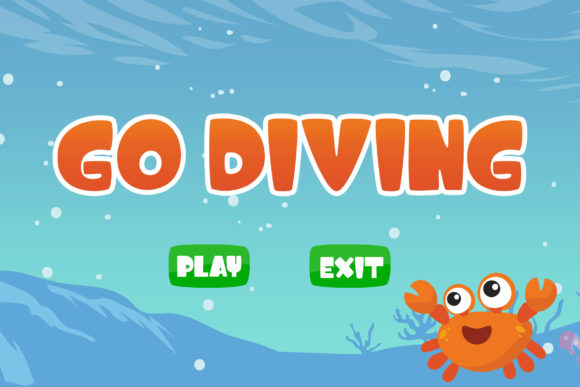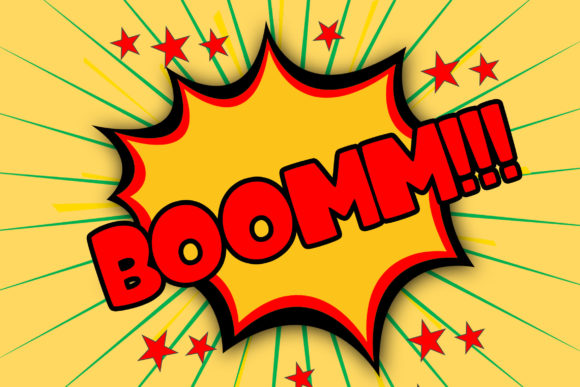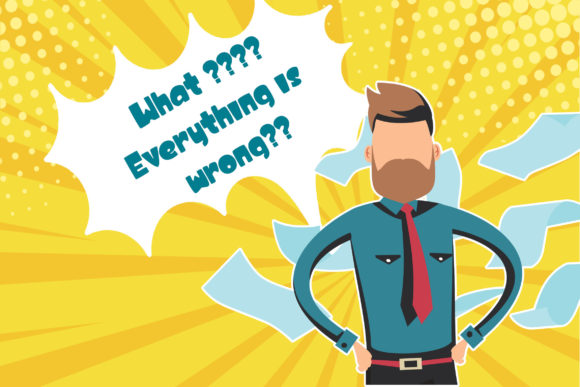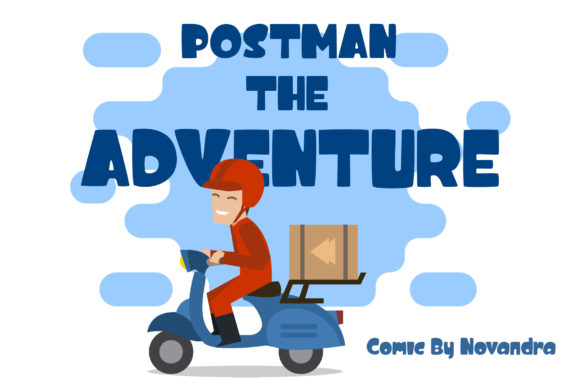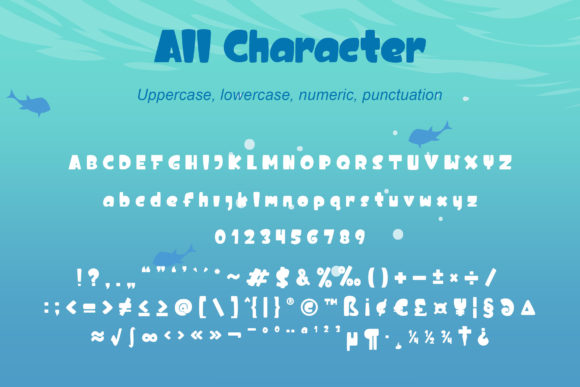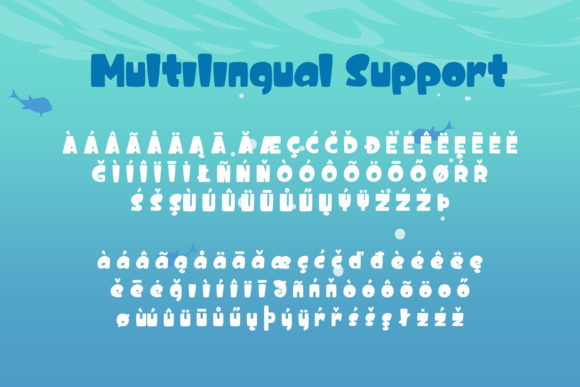
Introducing Fishland Font: The Perfect Choice for Whimsical Designs
Are you a designer or crafter looking for a font that can add a touch of friendliness and quirkiness to your creations? Look no further than Fishland Font! This thick lettered, friendly, and quirky display font is perfect for a wide range of design projects, from cartoon-related designs to children’s games, quotes, titles, brand names, book covers, posters, and more.
What Makes Fishland Font So Special?
Fishland Font is a unique and eye-catching font that is sure to make your designs stand out. Its thick letters and friendly vibe make it perfect for designs that require a touch of playfulness and whimsy. Whether you’re creating a children’s book, a cartoon, or a poster, Fishland Font is a great choice. Its quirky style is sure to capture the attention of your audience and leave a lasting impression.
Uses for Fishland Font
Fishland Font is a versatile font that can be used for a wide range of design projects. Here are some ideas to get you started:
- Cartoon-related designs: Fishland Font is perfect for creating cartoon characters, logos, and titles. Its playful style is sure to bring your cartoons to life.
- Children’s games: Fishland Font is a great choice for creating games, puzzles, and other interactive activities for kids. Its friendly and approachable style is sure to delight children and make your games more engaging.
- Quotes and titles: Fishland Font is perfect for creating eye-catching quotes and titles. Its thick letters and quirky style make it a great choice for adding a touch of personality to your designs.
- Brand names: Fishland Font can be used to create unique and memorable brand names. Its friendly and approachable style is sure to make your brand stand out.
- Book covers: Fishland Font is a great choice for creating eye-catching book covers. Its playful style is sure to capture the attention of readers and make your book more appealing.
- Posters: Fishland Font is perfect for creating posters that require a touch of whimsy and playfulness. Its quirky style is sure to make your posters more engaging and memorable.
Benefits of Using Fishland Font
There are many benefits to using Fishland Font in your designs. Here are a few:
- Unique and eye-catching: Fishland Font is a unique and eye-catching font that is sure to make your designs stand out.
- Playful and whimsical: Fishland Font has a playful and whimsical style that is perfect for designs that require a touch of friendliness and quirkiness.
- Versatile: Fishland Font can be used for a wide range of design projects, from cartoon-related designs to book covers and posters.
- Easy to read: Despite its thick letters, Fishland Font is easy to read and understand, making it perfect for designs that require a clear and concise message.
Tips for Using Fishland Font
Here are a few tips for using Fishland Font in your designs:
- Use it sparingly: Fishland Font is a bold and eye-catching font, so it’s best to use it sparingly. Use it for headings and titles, and a simpler font for body text.
- Experiment with colors: Fishland Font looks great in a wide range of colors, so don’t be afraid to experiment and find the perfect color for your design.
- Pair it with other fonts: Fishland Font can be paired with other fonts to create a unique and interesting design. Try pairing it with a simpler font for a contrasting look.
| Author | Dacatype Studio |
Fishland Font is a unique and eye-catching font that is perfect for designers and crafters looking to add a touch of friendliness and quirkiness to their designs. Its thick letters and playful style make it perfect for a wide range of design projects, from cartoon-related designs to book covers and posters. With its versatility, ease of use, and unique style, Fishland Font is a great choice for any designer or crafter looking to create eye-catching and engaging designs.